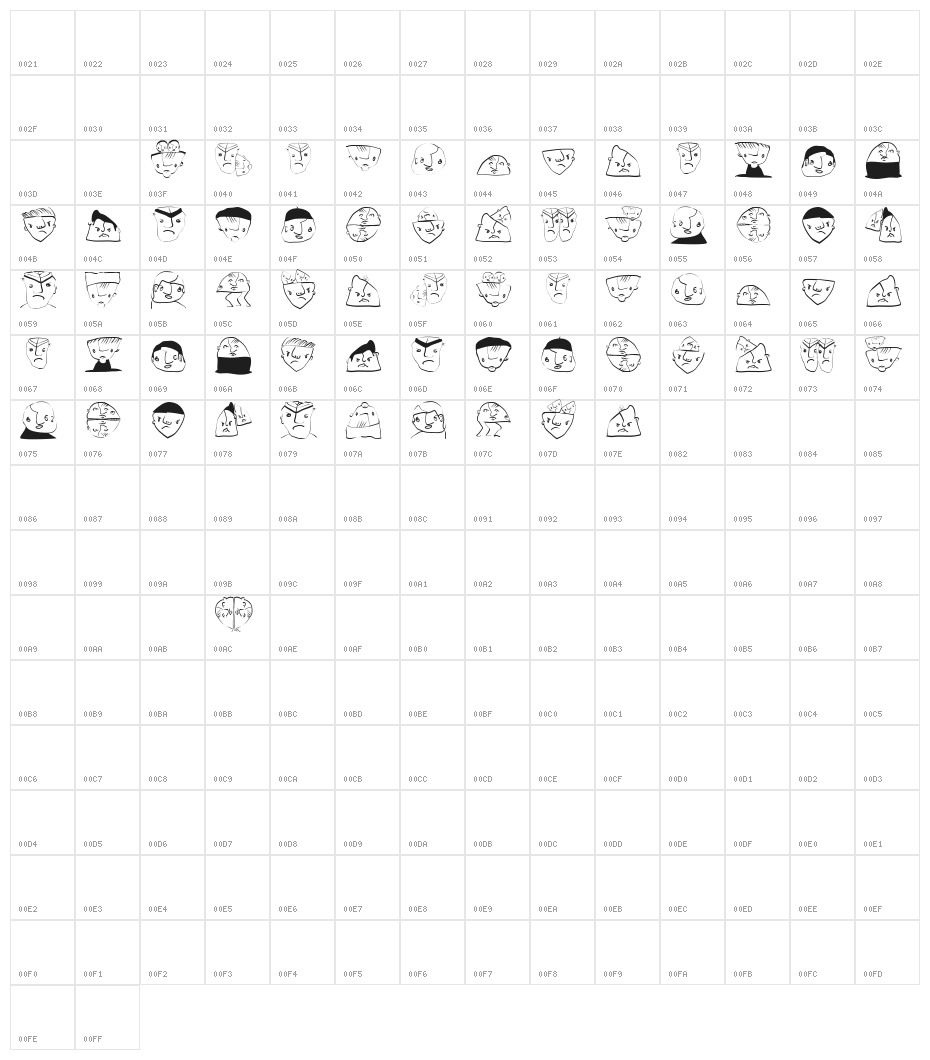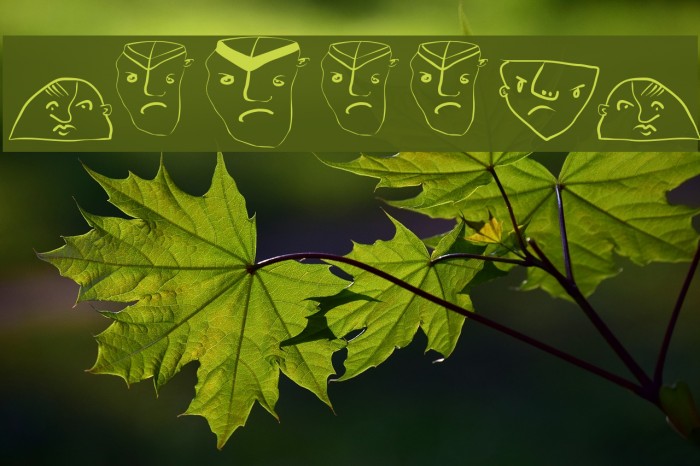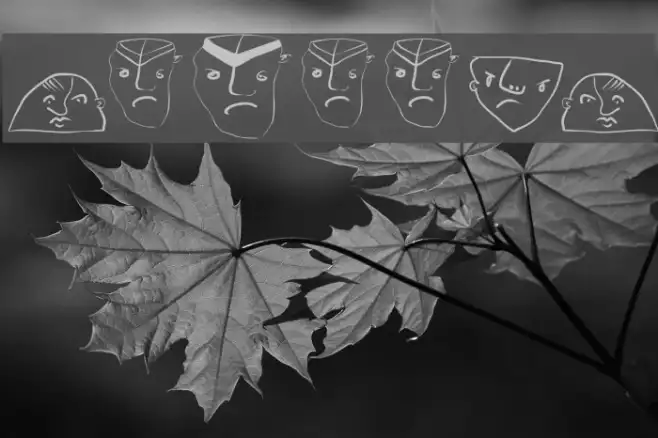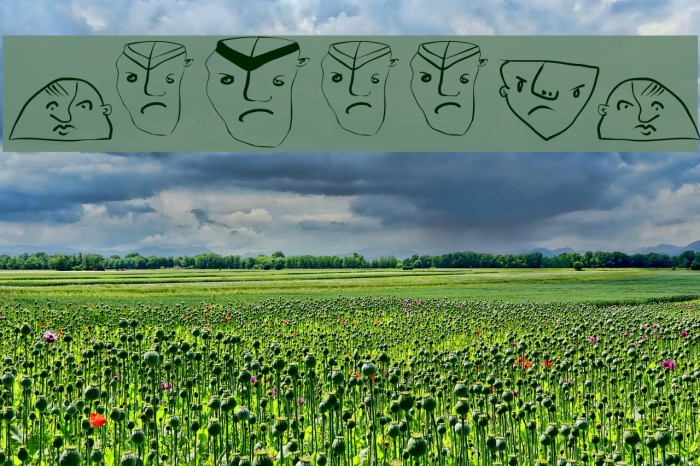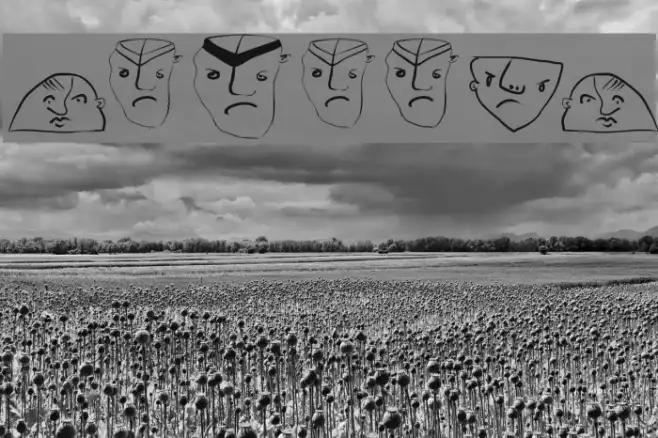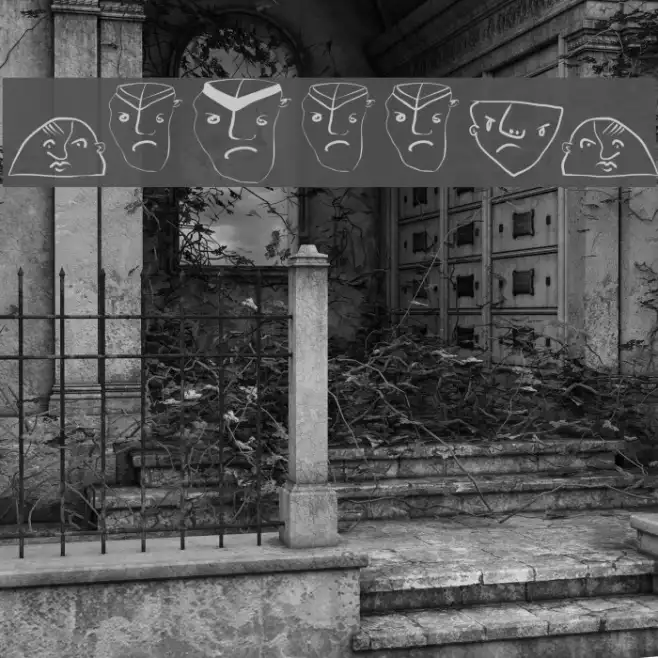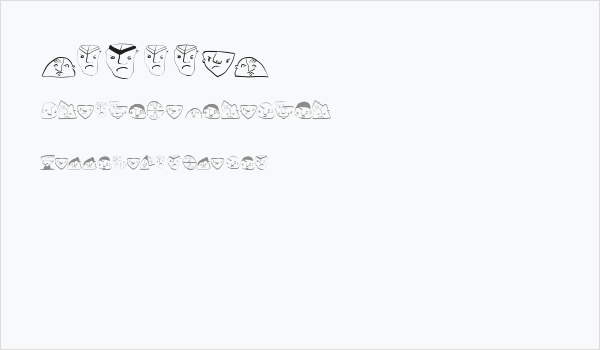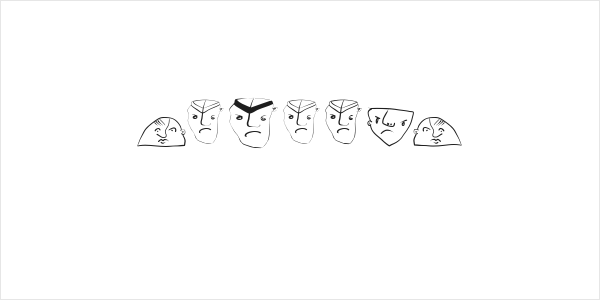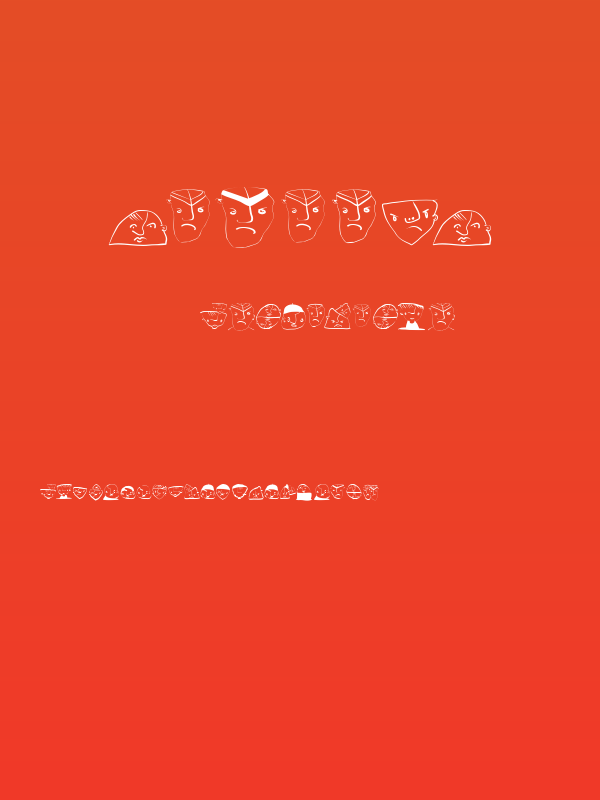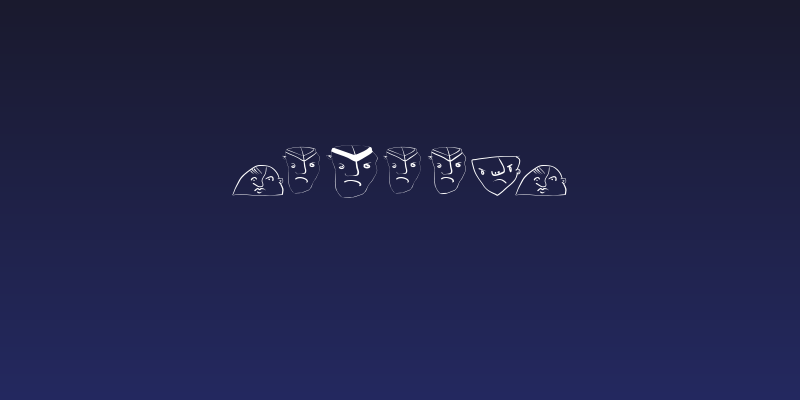
Damaged Font
Damaged Description
A highly decorative and playful display font where each character is represented by a unique, hand-drawn face with expressive features, giving the typeface a whimsical and artistic appearance.
| Overall Style | Decorative, Whimsical, Artistic |
| Use Case | Logos, Posters, Headlines, ChildrenΓ’β¬β’s materials |
| Proposed Projects | ChildrenΓ’β¬β’s books, posters, creative branding, event invitations, art projects, editorial illustrations. |